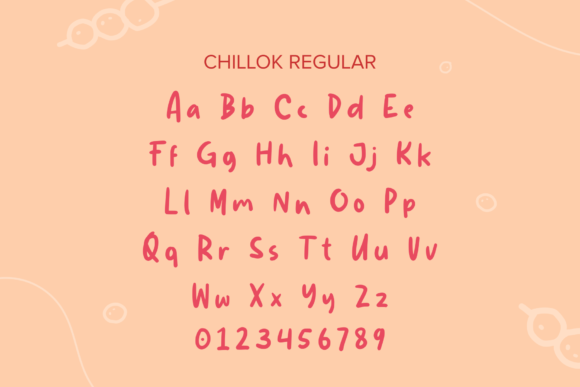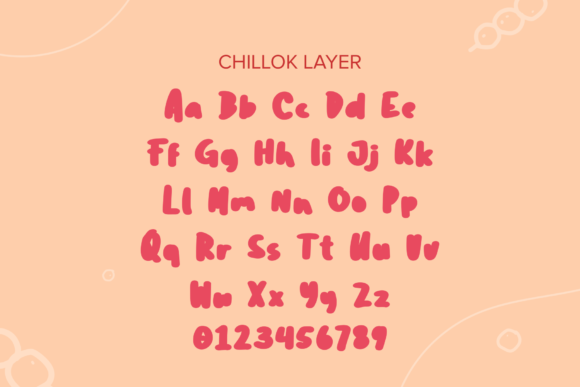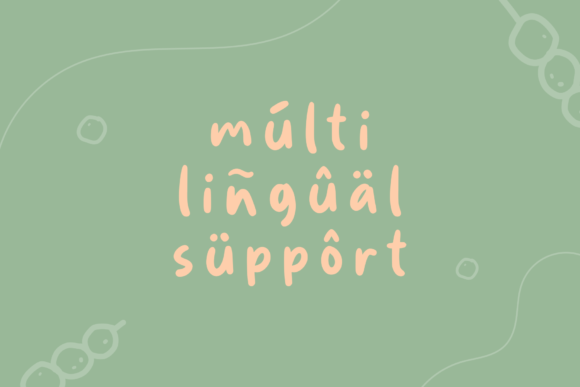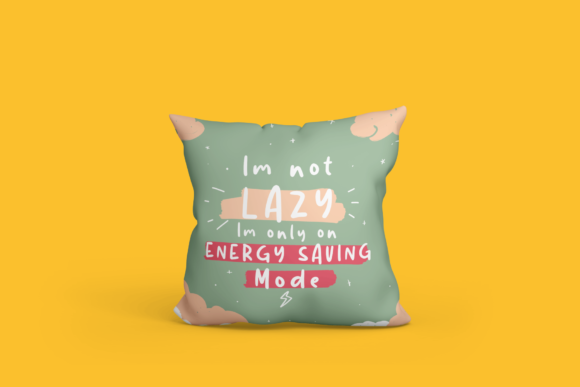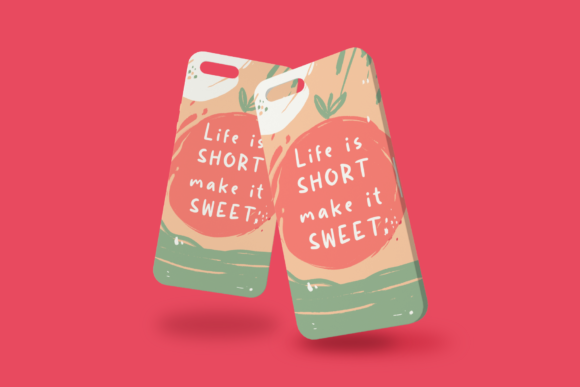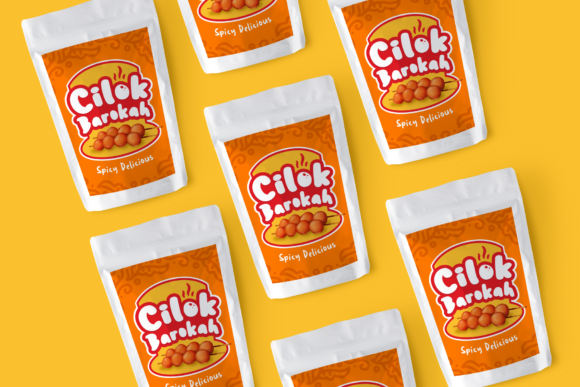
Introducing Chillok Font: The Sweet and Thick Lettered Display Font You Need
Are you tired of using the same old fonts for your creative projects? Do you want to add a touch of uniqueness and personality to your designs? Look no further than Chillok Font, a sweet and thick lettered display font that’s sure to make your ideas stand out. In this article, we’ll dive into the features and benefits of Chillok Font, and explore how it can elevate your designs to the next level.
What is Chillok Font?
Chillok Font is a display font that’s characterized by its sweet and thick lettering style. It’s perfect for designers and crafters who want to add a touch of playfulness and whimsy to their projects. The font’s bold and chunky letters are sure to grab attention, making it ideal for headlines, titles, and other display text.
Key Features of Chillok Font
- Sweet and Thick Lettering Style: Chillok Font’s unique lettering style is both sweet and thick, making it perfect for creating eye-catching displays.
- Bold and Chunky Letters: The font’s bold and chunky letters are sure to grab attention and make your designs stand out.
- Playful and Whimsical: Chillok Font’s playful and whimsical style makes it perfect for designs that require a touch of personality.
- Easy to Read: Despite its bold and chunky style, Chillok Font is easy to read, making it perfect for use in a variety of design applications.
Benefits of Using Chillok Font
So why should you choose Chillok Font for your next design project? Here are just a few benefits of using this amazing font:
- Adds Personality to Your Designs: Chillok Font’s unique style adds a touch of personality to your designs, making them more engaging and memorable.
- Perfect for Display Text: The font’s bold and chunky style makes it perfect for use in display text, such as headlines and titles.
- Versatile: Chillok Font can be used in a variety of design applications, from digital graphics to print materials.
- Easy to Pair with Other Fonts: The font’s unique style makes it easy to pair with other fonts, allowing you to create visually appealing combinations.
How to Use Chillok Font in Your Designs
So how can you use Chillok Font in your designs? Here are a few ideas to get you started:
- Headlines and Titles: Use Chillok Font to create eye-catching headlines and titles that grab attention.
- Logos and Branding: The font’s unique style makes it perfect for use in logos and branding materials.
- Social Media Graphics: Use Chillok Font to create engaging social media graphics that stand out in crowded feeds.
- Print Materials: The font’s bold and chunky style makes it perfect for use in print materials, such as posters, flyers, and brochures.
In conclusion, Chillok Font is a sweet and thick lettered display font that’s perfect for designers and crafters who want to add a touch of personality to their designs. With its bold and chunky letters, playful and whimsical style, and ease of use, Chillok Font is sure to make your ideas stand out. So why wait? Add Chillok Font to your creative toolkit today and start creating designs that grab attention and leave a lasting impression.
Whether you’re a seasoned designer or just starting out, Chillok Font is a great addition to your font library. Its versatility and ease of use make it perfect for a variety of design applications, from digital graphics to print materials. So go ahead, get creative with Chillok Font, and see how it can elevate your designs to the next level.